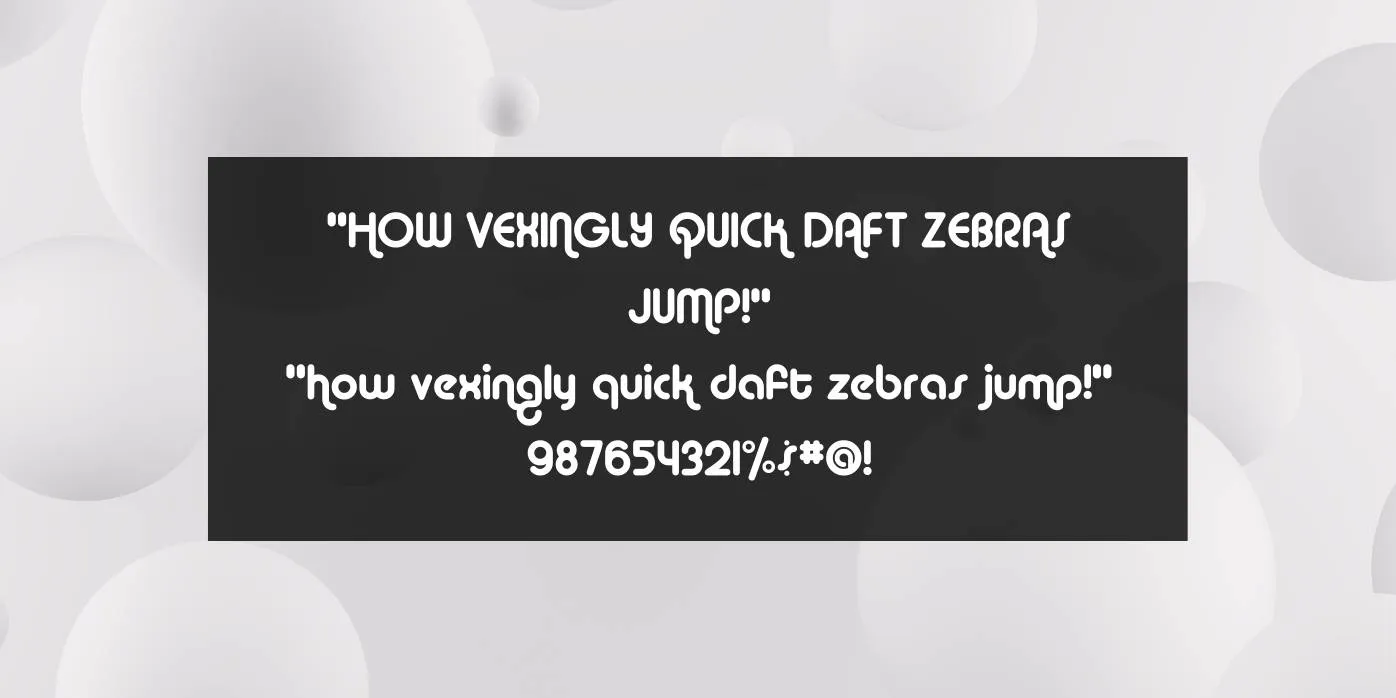
Alba Font
Here, we discuss a very awesome font family known as Alba Font. This typeface was developed by Fontalicious. Alba is a condensed, fancy typeface that includes four weights: light, regular, medium, and bold. The Alba family also contains small caps.
Alba has horizontal stress that gives the face a great deal of energy. The shapes are constructed with traditional proportions for both readability and functionality. Alba’s x-height is large in order to provide good legibility at smaller sizes. Its copy and paste function is suitable for various designs.
You can also use lucy font which is closest to this font family. The Regular weight is ideal for use in body text, while the Bold weight is perfect for headlines and display text. If you’re looking for a versatile font that can be used for both web and print projects, then Alba is a perfect choice. You can also utilize the online generator tool for this family.